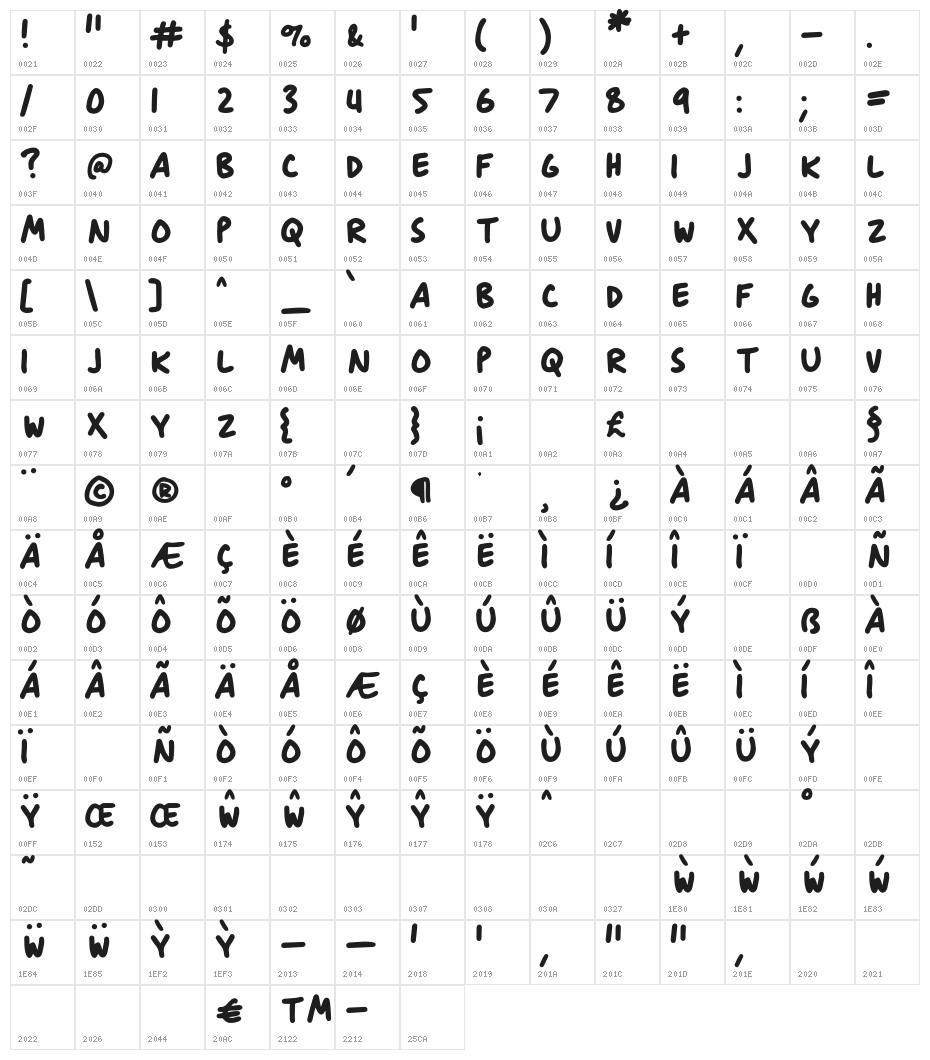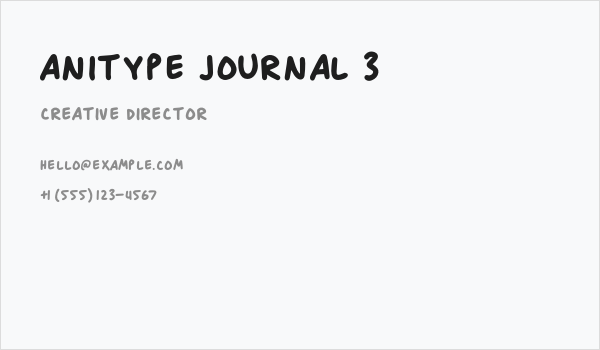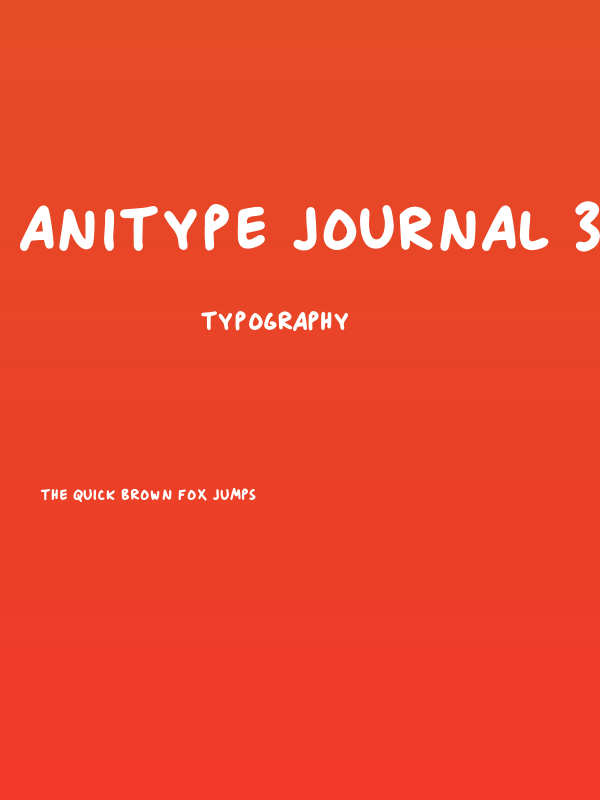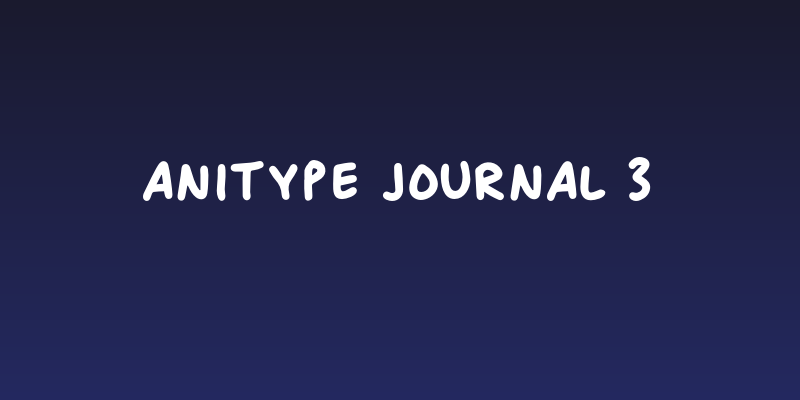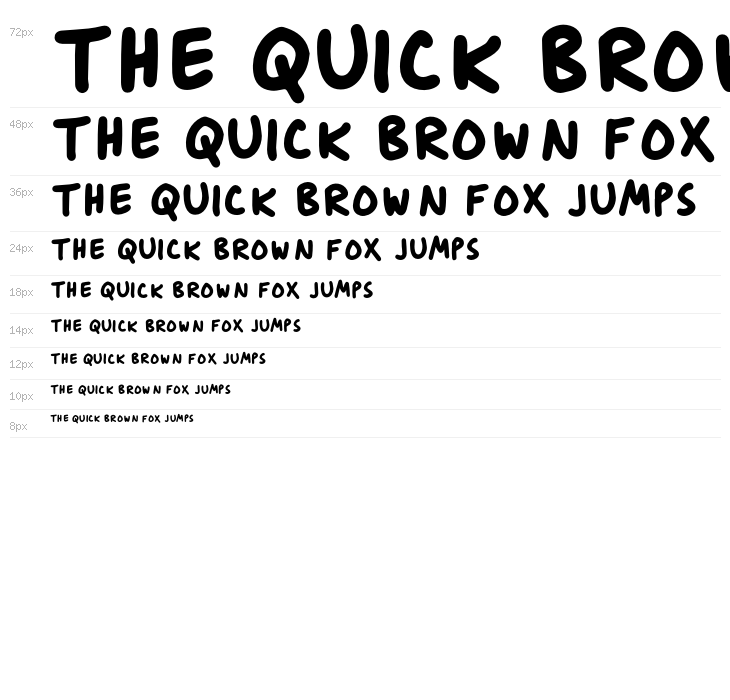
Anitype Journal 3 Font
Anitype Journal 3 Description
This font features a playful and bold handwritten style, characterized by its rounded and slightly irregular letterforms. The uppercase and lowercase letters maintain a consistent thickness, giving the font a uniform appearance. The numbers and special characters follow the same playful aesthetic, making it suitable for informal and creative projects. The font's design is approachable and friendly, with a touch of whimsy that adds personality to any text. Its legibility is maintained despite the casual style, making it versatile for various uses.
| Proposed Projects | Ideal for children's books, playful branding, casual invitations, and social media graphics. |